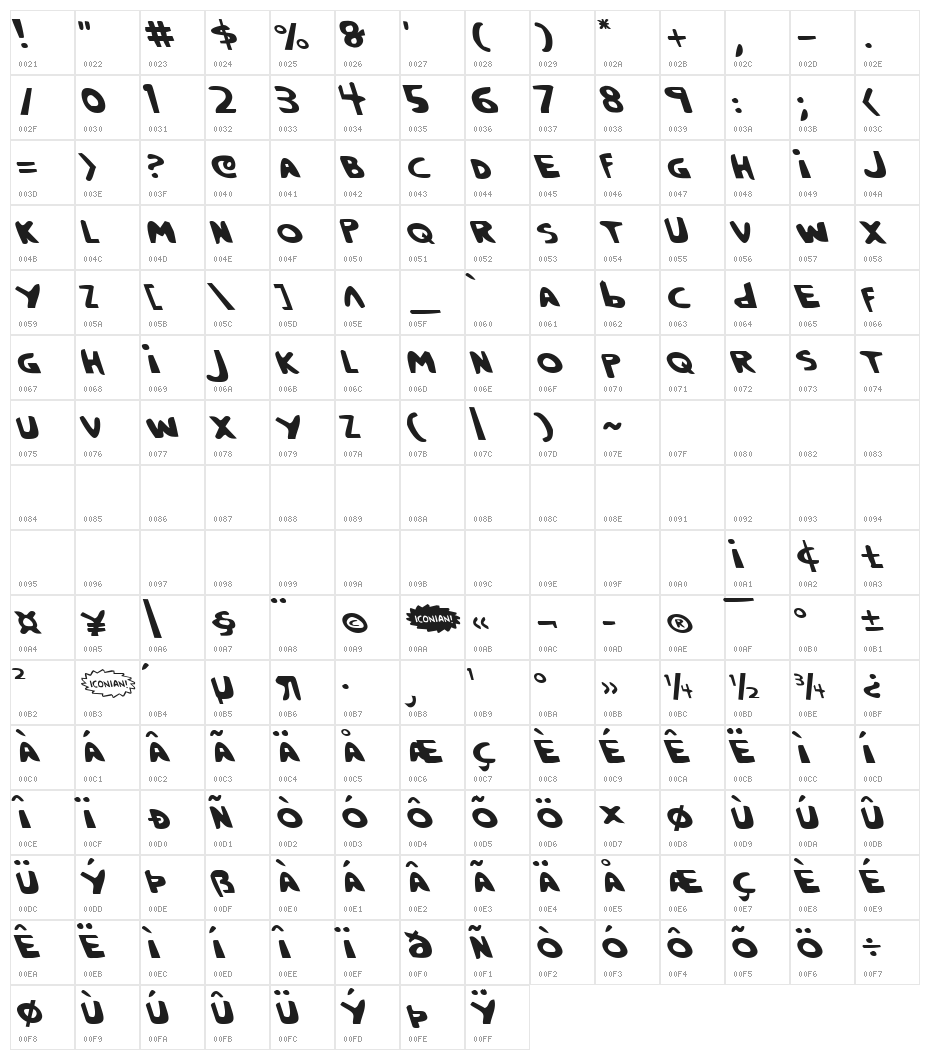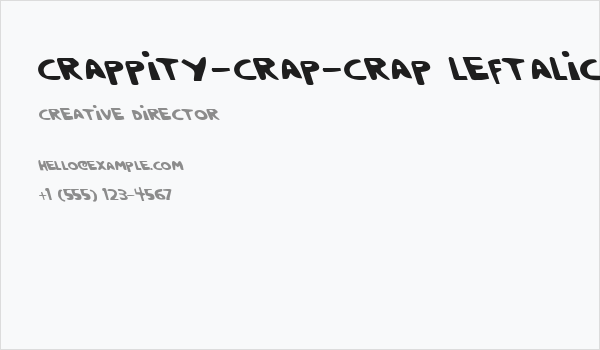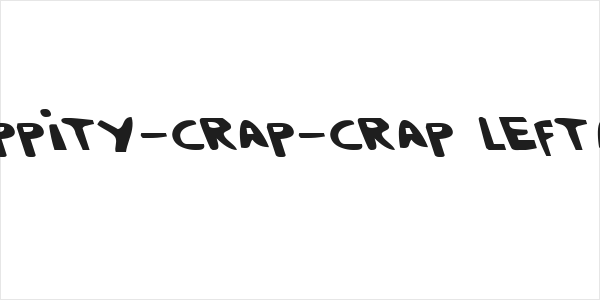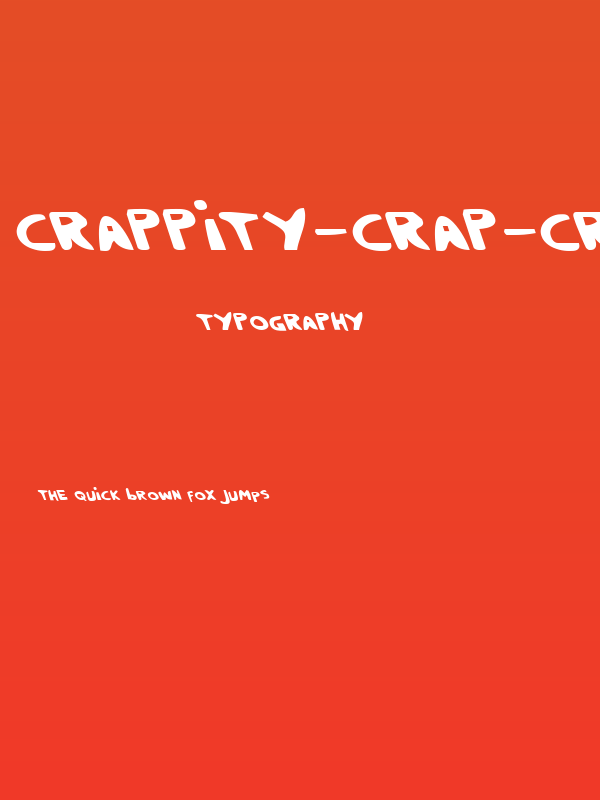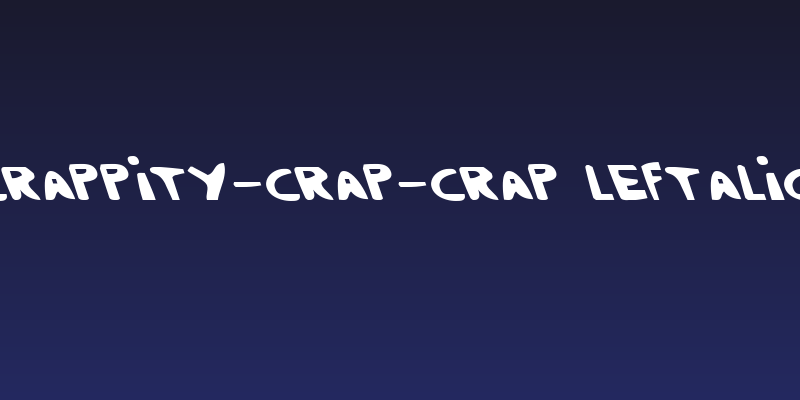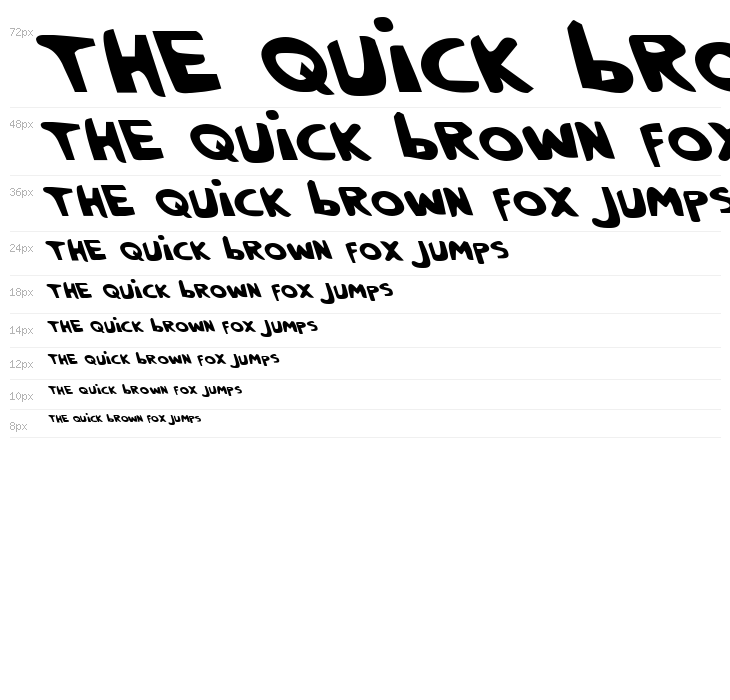
Crappity-Crap-Crap Leftalic Font
Crappity-Crap-Crap Leftalic Description
This playful and bold font features a unique, hand-drawn style with a leftward slant, giving it a dynamic and whimsical appearance. The characters are thick and slightly irregular, adding to the casual and informal feel. The uppercase and lowercase letters maintain a consistent style, with rounded edges and a slightly exaggerated form. Numbers and special characters follow the same design principles, ensuring a cohesive look across all elements. This font's distinctive style makes it stand out, ideal for projects that require a fun and engaging visual impact.
| Use Case | Headlines, Posters, Branding |
| Proposed Projects | Great for children's books, comic strips, playful branding, and creative posters. |